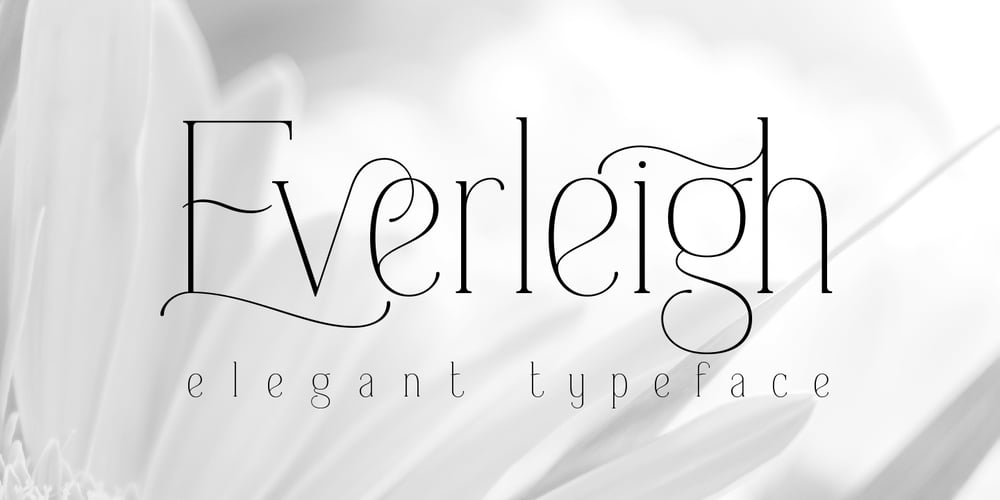
Everleigh Font Family was designed by Gleb Guralnyk and published by Gleb Guralnyk. Everleigh contains 1 styles and family package options. Everleigh is an elegant thin typeface inspired by antique old school fonts. It includes lots of ligatures and stylistic alternates helps to create an authentique and original lettering compositions. Also this font has multilingual support. Check out all available characters on the previews. Thank you and have a nice day!